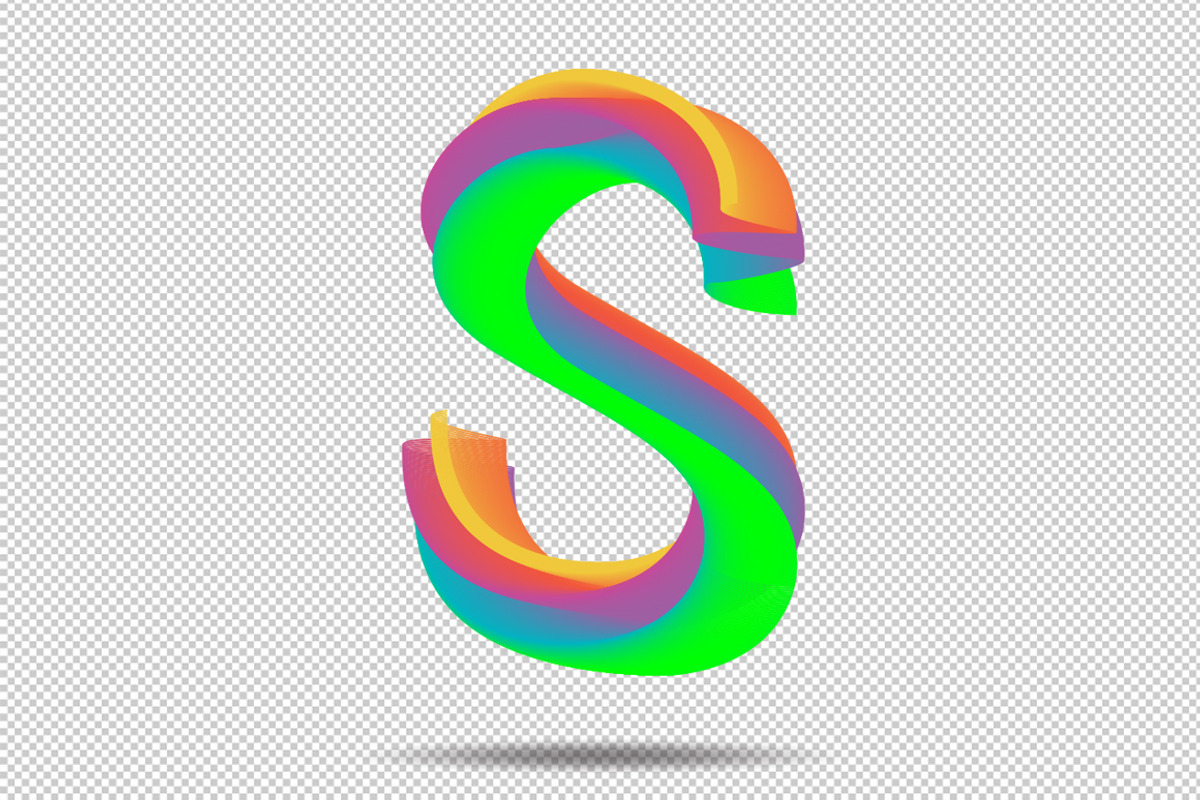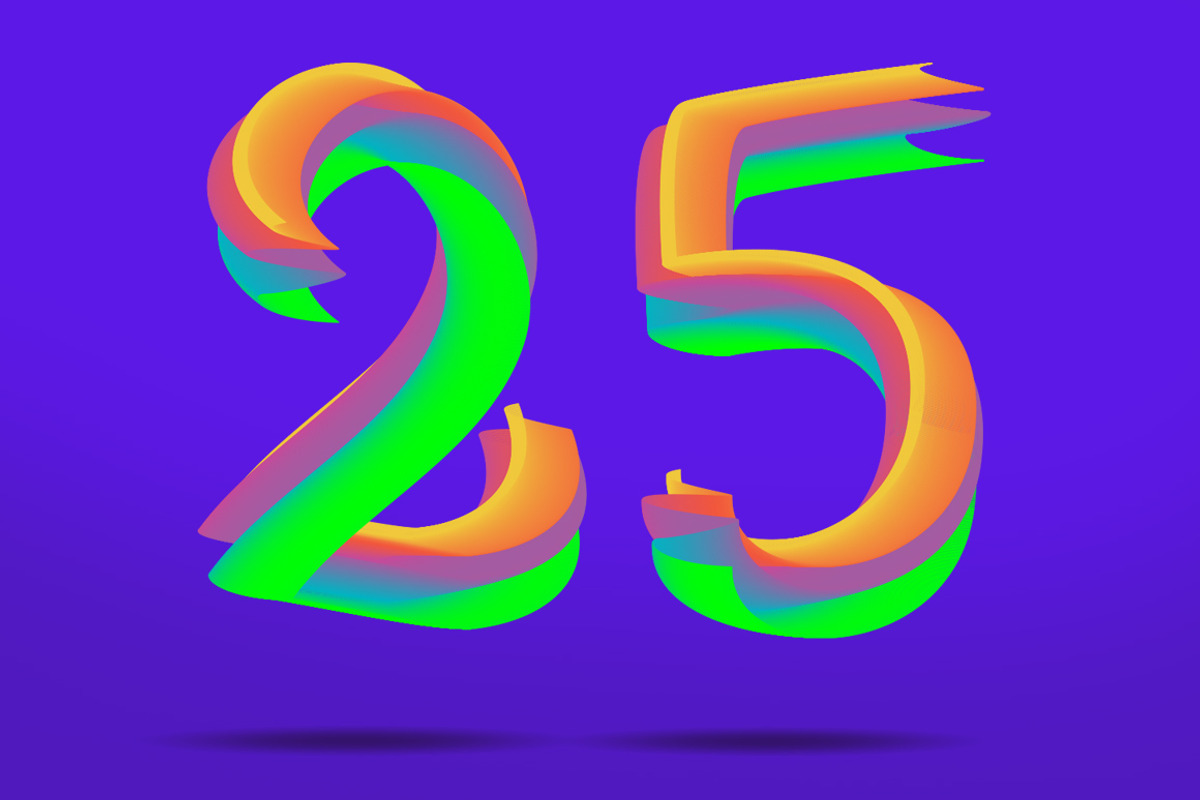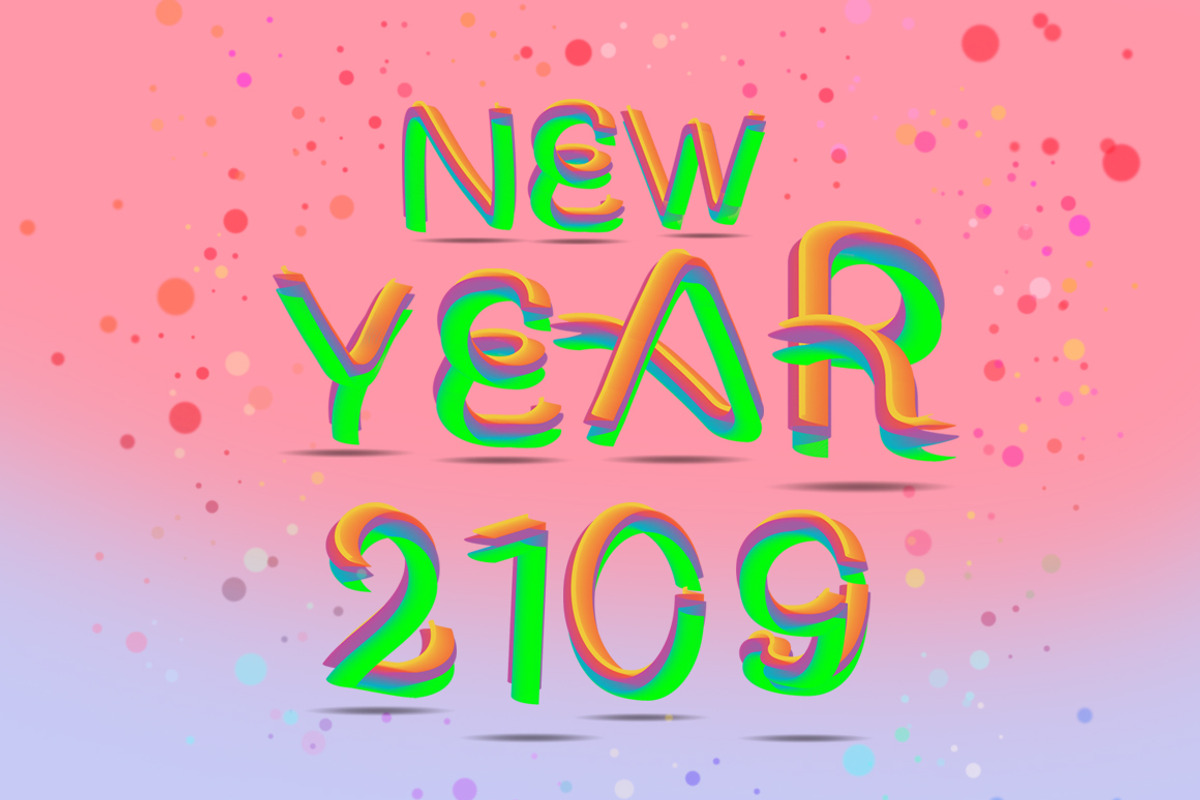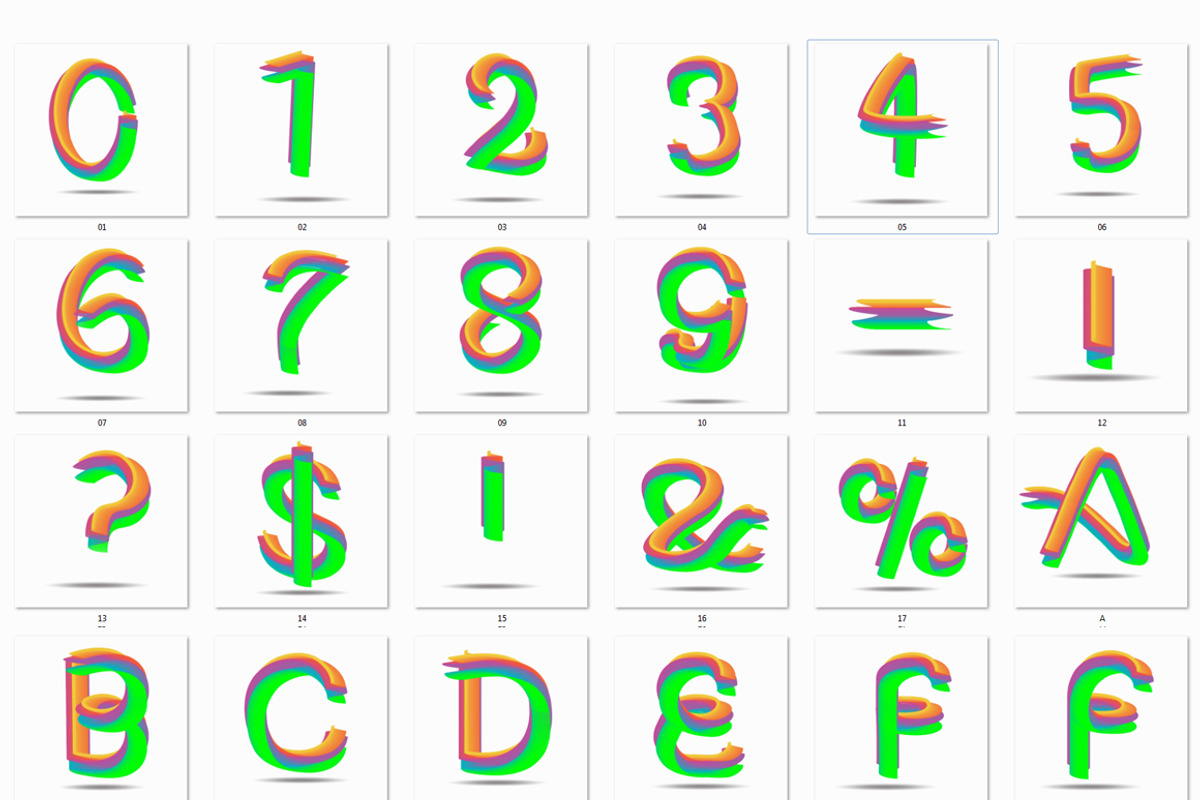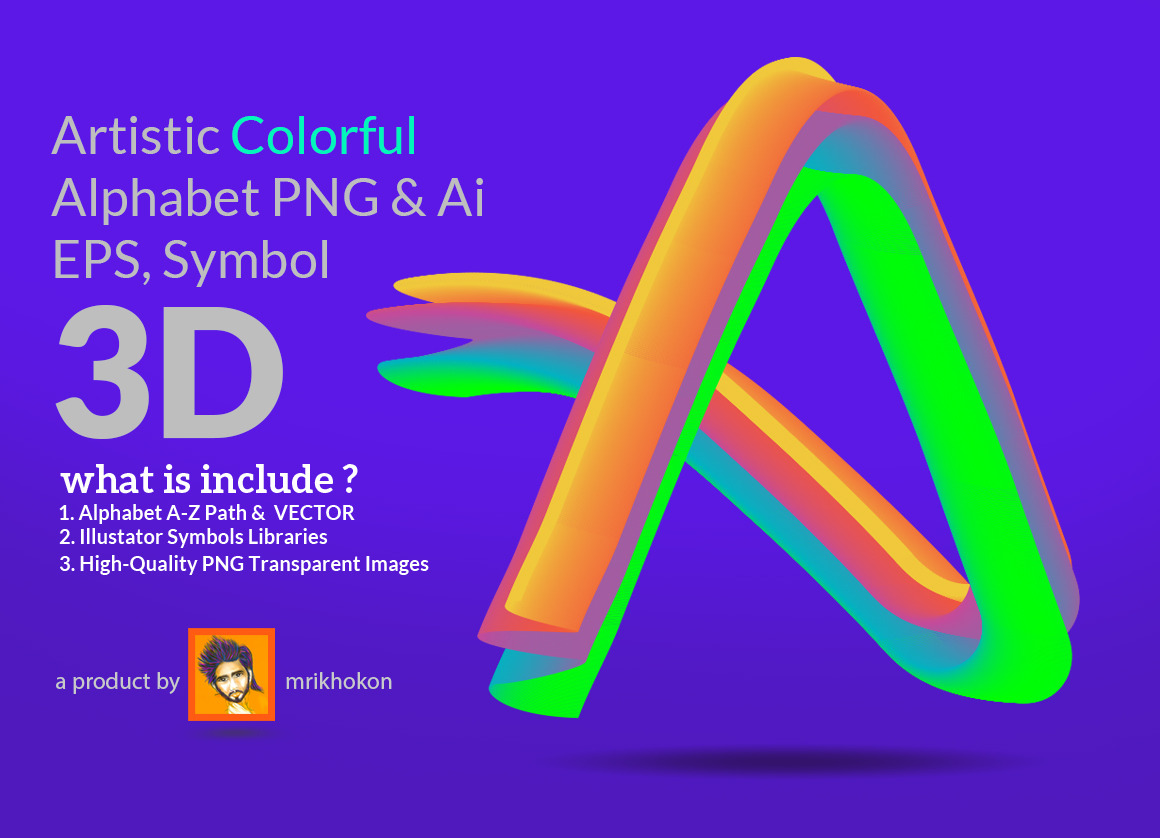
3D Colorful Font
3D Colorful letters and numbers with isolated Alphabet
You're very easy to get 3D style hidden fonts There are a number of advantages in the phones in the FONT, This front is getting four formats, You can easily customize it and you can sketch the design as you like, There are options for developing.
Upper Letters and numbers
Easily Change Color and path style